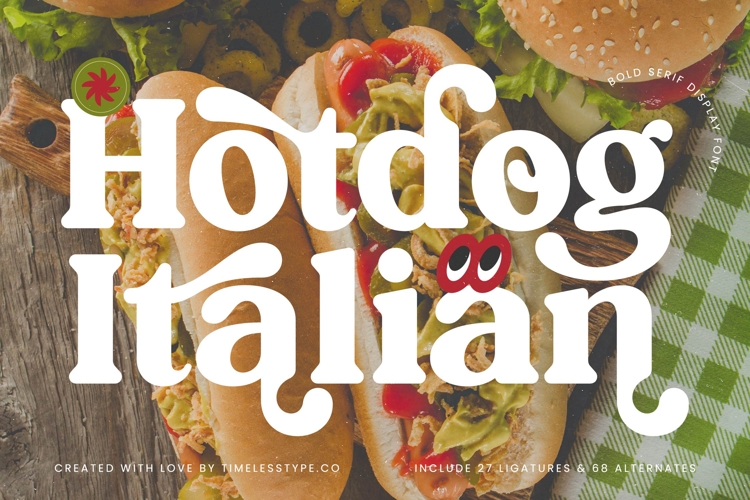
Hotdog Italian - Bold Serif Display Font
Hotdog Italian is a bold serif display font that combines playful energy with strong typographic presence. Its chunky strokes, quirky terminals, and decorative alternates make it stand out as a typeface full of charm and personality. Designed with 27 ligatures and 68 alternates, Hotdog Italian allows designers to experiment with endless variations, ensuring each composition feels fresh, creative, and uniquely expressive. With its bold yet friendly look, this font is perfect for projects that want to balance impact with a touch of fun.
This font excels in headline typography, where its thick serifs and whimsical curves immediately grab attention across posters, banners, and digital media. In branding and logo design, it communicates a fun yet confident identity, making it especially suitable for restaurants, cafes, street food brands, and lifestyle businesses that aim to feel approachable while standing out. Its bold character also makes it perfect for packaging design, particularly for food and beverage products where vibrant and playful typography enhances desirability.
Hotdog Italian is equally strong in advertising campaigns, event promotions, and social media graphics, delivering messages with clarity while adding a lively, stylish tone. The unique ligatures and alternates give designers freedom to craft expressive layouts that stand out in crowded spaces. In editorial layouts or lifestyle projects, the font adds character and warmth, ensuring typography becomes a highlight of the design.
For digital platforms, Hotdog Italian adapts seamlessly to websites, apps, and online promotions, ensuring content feels bold, fun, and memorable. With multilingual support, it also works effortlessly in international projects, broadening its creative reach.
Ultimately, Hotdog Italian is more than just a display font—it is a visual storyteller of bold flavor and playful charm. Whether used for headlines, branding, packaging, advertising, or digital content, it ensures every word stands out with strength, creativity, and personality.